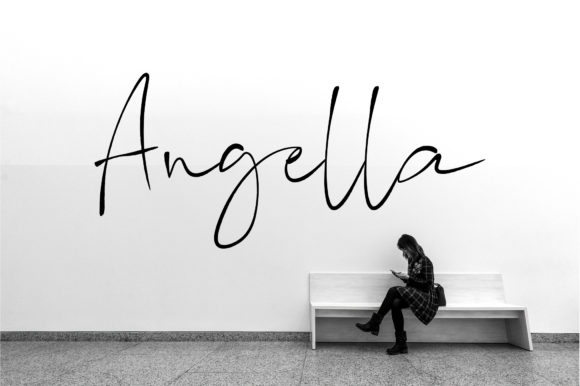
The Elusive Font: My Journey with Angella
I’ll never forget the time I was working on a wedding invitation project, and my client asked for a font that was “elegant, modern, and classy.” I scoured the internet, tried out dozens of fonts, but nothing seemed to fit the bill. That was until I stumbled upon Angella, a thin and elegant script font that stole my heart. In this article, I’ll share my experience with Angella, its features, and how to make the most of it in your designs.
First Impressions: What I Love About Angella
Angella is a stunning script font that exudes sophistication and style. Here are some things I love about it:
- ✨ Classy and elegant: Angella has a refined, luxurious feel that’s perfect for high-end designs.
- ✅ Modern look: Despite its classic feel, Angella has a modern twist that makes it suitable for contemporary designs.
- 💫 Versatile: Angella can be used for a wide range of projects, from logos and branding to invitations, stationery, and social media posts.
The Not-So-Perfect Font: Small Quirks and Limitations
While Angella is an excellent font, it’s not without its quirks. Here are a few things to keep in mind:
- 🤔 Limited kerning options: Angella’s kerning options are limited, which can make it challenging to adjust the spacing between letters.
- ⚠️ Not suitable for body text: Angella is a display font, and its thin strokes can make it difficult to read in large blocks of text.
The Story Behind Angella
Angella was designed by a team of typographers who wanted to create a font that was both elegant and modern. Inspired by classic script fonts, they added a contemporary twist to create a unique and versatile font. While the designer’s story is fictional, it’s clear that Angella was crafted with love and attention to detail.
| Font Name | Angella Font |
| Author | najmustsaqib.creator |
| What is Angella’s style? | Angella is a thin and elegant script font with a modern look. |
| Is Angella suitable for body text? | No, Angella is a display font and not suitable for large blocks of text. |
| Does Angella support OpenType features? | Yes, Angella supports OpenType features like Stylistic Alternates, Glyphs, and Swashes. |